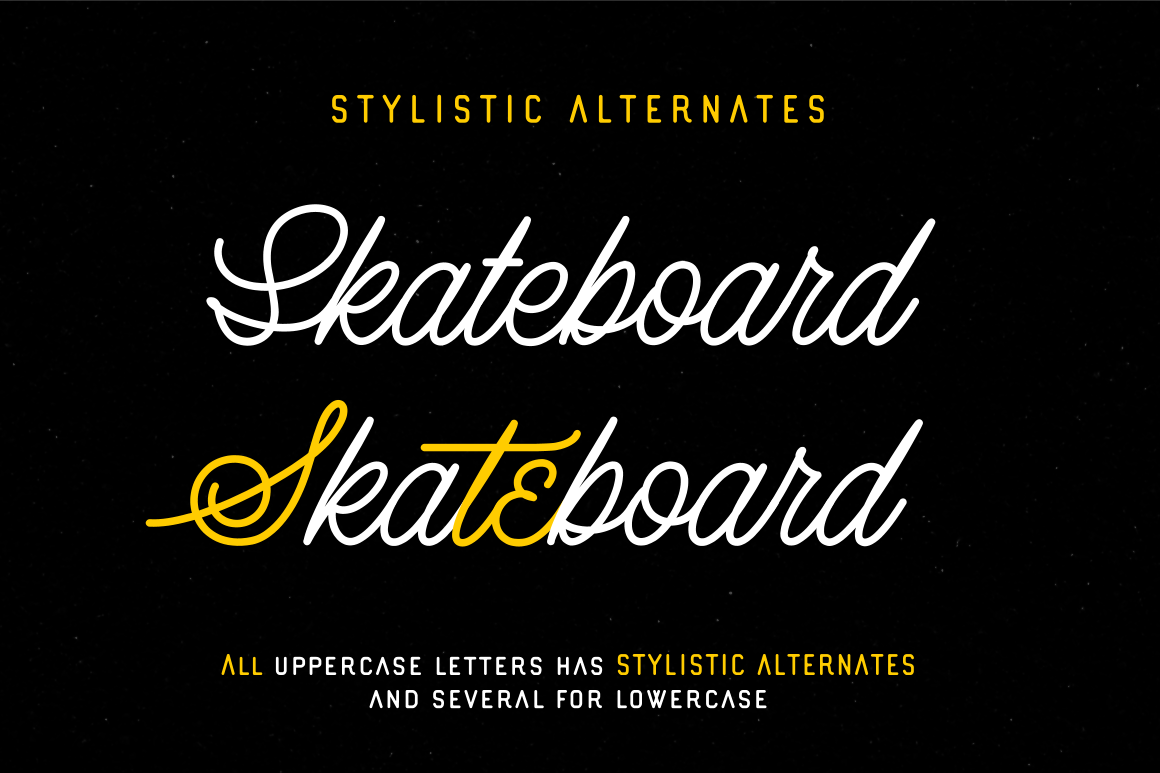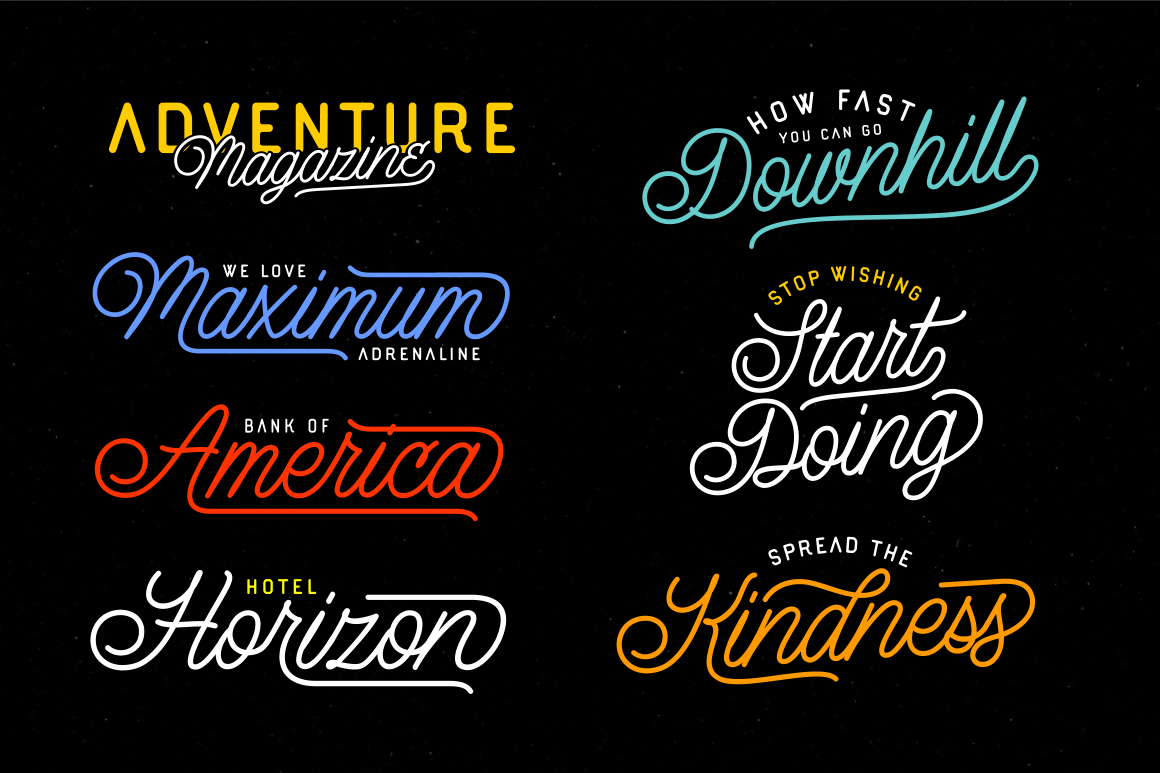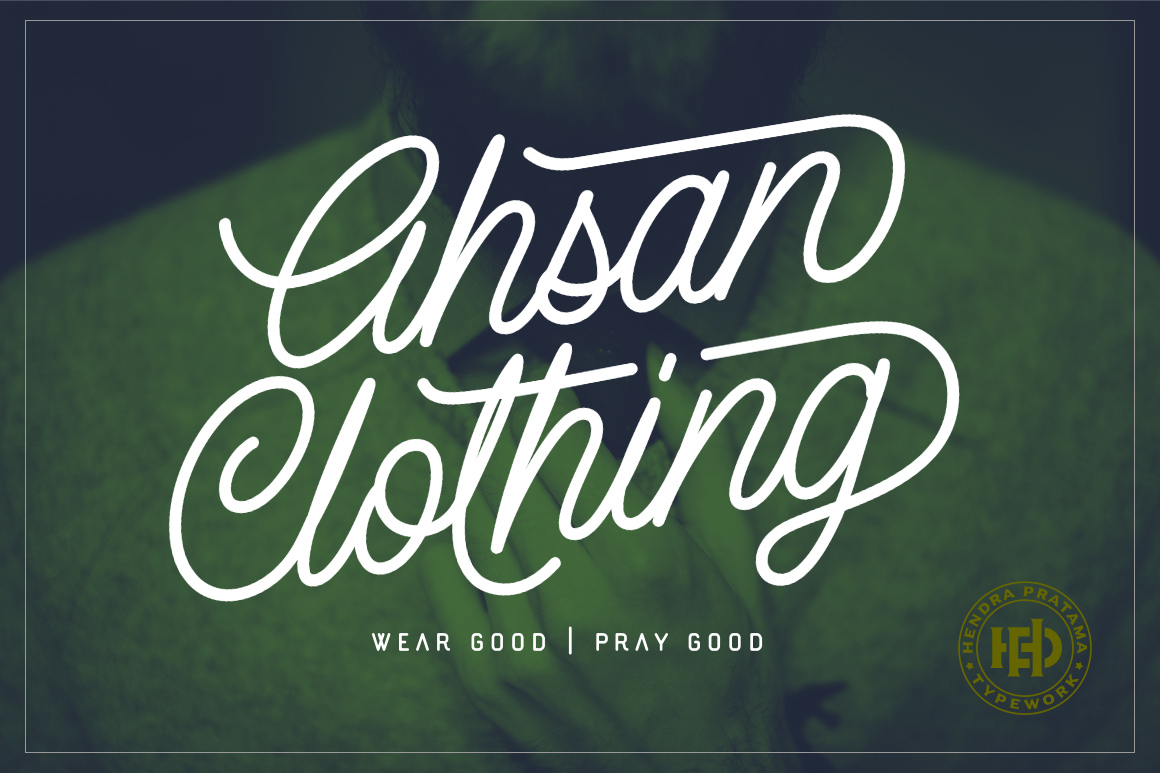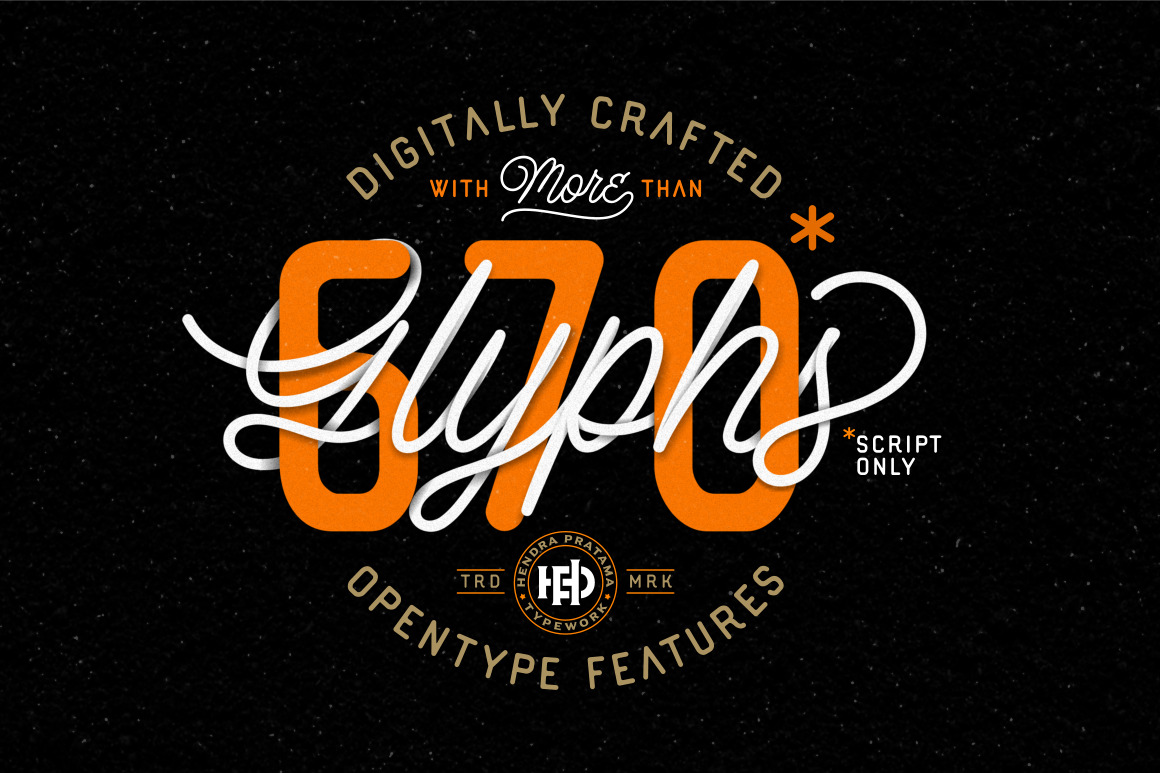
Lazy Ride  Font
About Lazy Ride  Font
The Lazy Ride font is a mono-linear script font, that was created after a custom logotype assigned for the “Lazy Ride Club”, a classic motorcycle club. This font is PUA encoded which means you can access the available glyphs and swashes with ease!